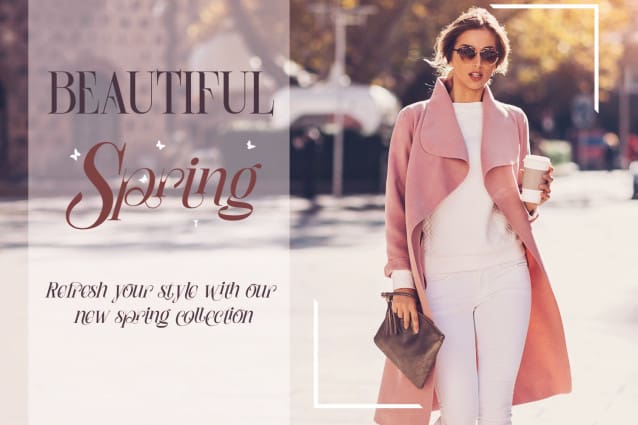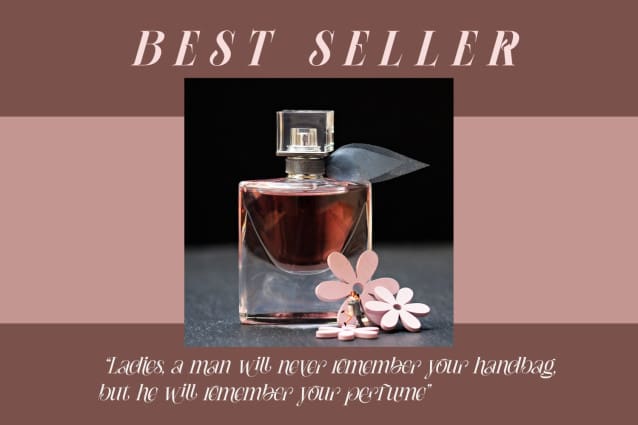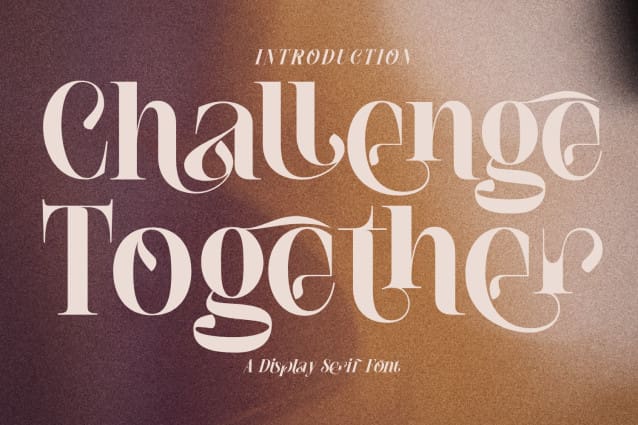
Challenge Together Font
Challenge Together Font, an unique ligatures font, a retro serif font that seamlessly combines vintage charm with contemporary flair. Meticulously crafted, its sophisticated serifs and gentle curvature exude warmth and timeless appeal. Unique ligatures and beautiful alternates this font suitable for short text and long word such as headlines, logos, UI design, magazine text, product descriptions, and other design needs.
Challenge Together was built with OpenType features and includes 100 ligatures, alternate, numbers, punctuation, and it also supports other languages.